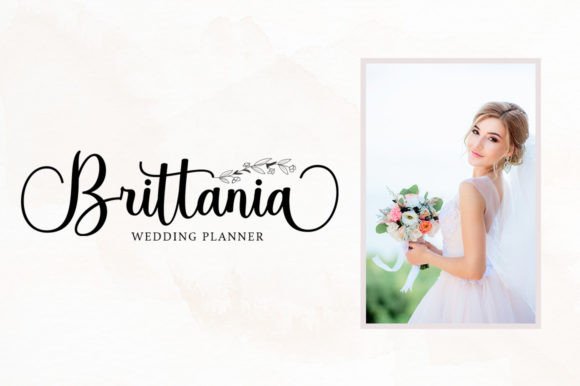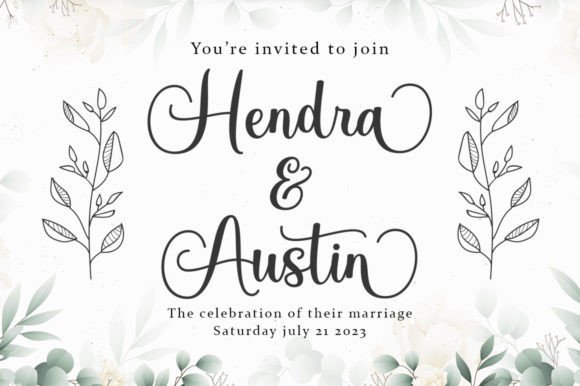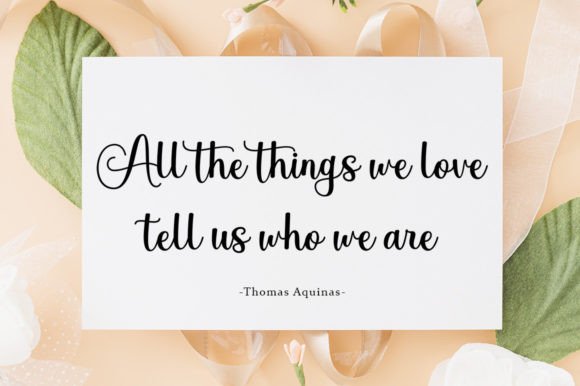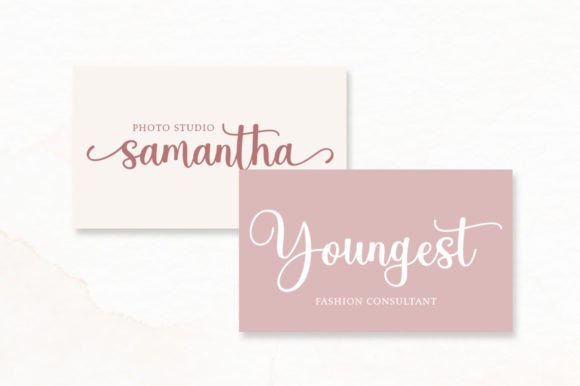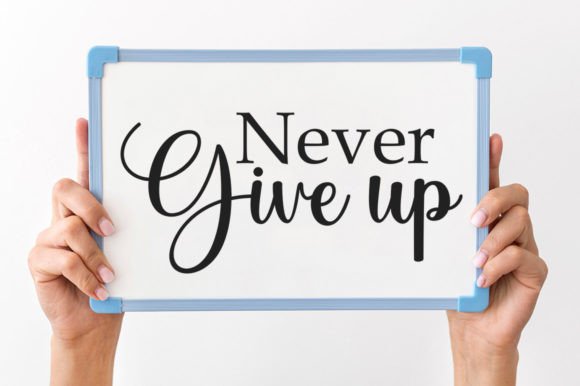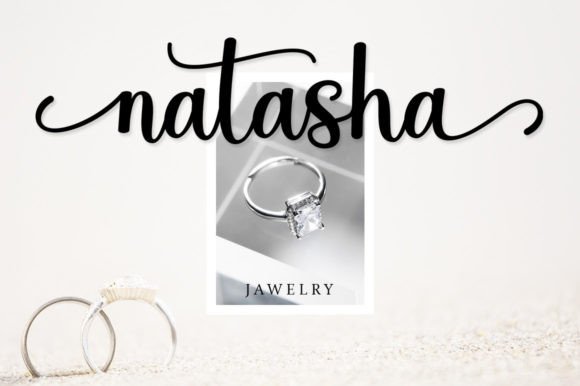
Introducing Agista Font: The Epitome of Elegance and Sophistication
In the realm of typography, few fonts manage to convey the essence of luxury, romance, and femininity as effortlessly as Agista. This elegant script font is a masterpiece of design, boasting flowing and graceful letterforms that exude a sense of refinement and poise. Agista is more than just a font; it’s a statement piece, perfect for designs that demand a touch of sophistication and glamour.
The Unique Charm of Agista
Agista’s unique charm lies in its delicate flourishes and cursive strokes, which give it a distinctive, luxurious feel. Each letterform is carefully crafted to contribute to the overall sense of elegance, making it an ideal choice for projects that require a high level of sophistication. Whether it’s a wedding invitation, a branding project, or an editorial design, Agista brings a level of refinement that’s hard to match.
Agista’s versatility is one of its standout features. Its elegant appearance makes it suitable for a wide range of design projects, including:
- Wedding Invitations: Add a touch of romance and luxury to your wedding invitations with Agista. Its flowing script and delicate flourishes make it perfect for conveying the joy and elegance of the occasion.
- Branding: For brands that want to convey a sense of sophistication and elegance, Agista is an excellent choice. It can add a level of refinement to logos, packaging, and marketing materials.
- Editorial Design: Agista can elevate editorial designs, such as magazine articles, blog posts, and books, by adding a touch of elegance and sophistication to the text.
Agista is PUA (Private Use Area) encoded, which means that accessing all the glyphs and ligatures is straightforward. This feature is particularly beneficial for designers, as it allows for greater flexibility and creativity in their work. With Agista, you can easily access a wide range of characters and ligatures, making it simpler to create beautiful, custom typography.
Why Choose Agista?
There are several reasons why Agista stands out from other script fonts:
- Elegant and Sophisticated: Agista’s unique letterforms and delicate flourishes give it a luxurious and sophisticated feel that’s hard to match.
- Versatile: Agista can be used for a wide range of design projects, from wedding invitations to editorial design.
- Easy to Use: With PUA encoding, accessing Agista’s glyphs and ligatures is simple, making it easier to create stunning typography.
- Feminine and Romantic: Agista’s flowing script and elegant appearance make it perfect for designs that want to convey a sense of femininity or romance.
Agista is more than just a font; it’s a design statement. Its elegant and sophisticated appearance makes it perfect for designers and crafters looking to add a touch of luxury and refinement to their projects. With its PUA encoding and versatile nature, Agista is an excellent choice for a wide range of design applications. Whether you’re creating wedding invitations, branding materials, or editorial designs, Agista is sure to elevate your work to new heights of elegance and sophistication.